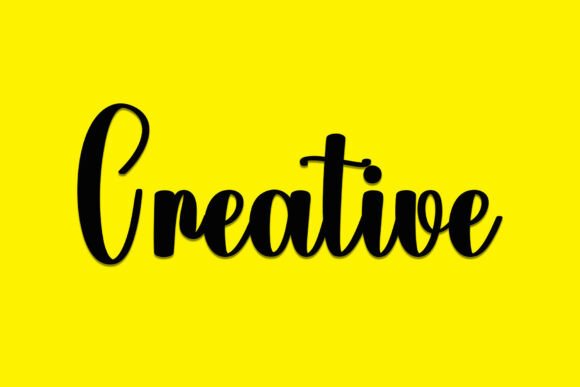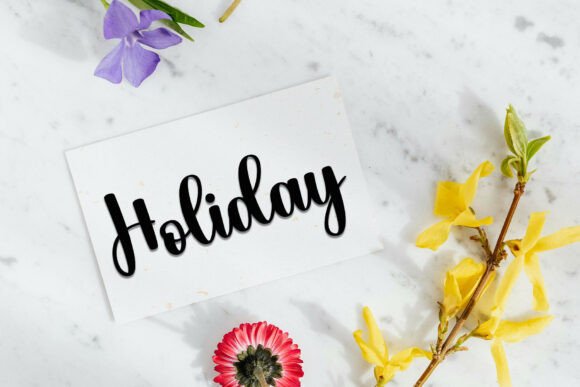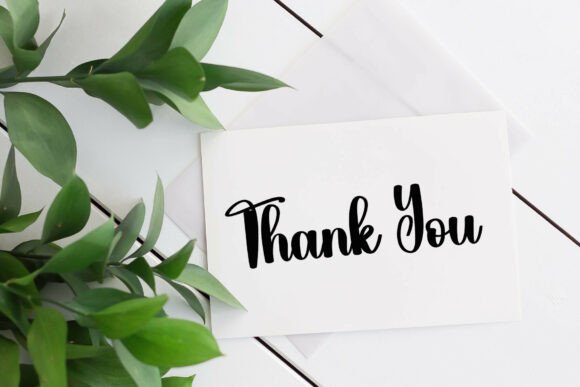
Introducing Background Beach: The Ultimate Modern Calligraphy Font for Elegant Coastal Designs
Are you looking for a font that combines sophistication with a relaxed coastal vibe? Look no further than Background Beach, a stunning modern calligraphy font that brings elegance and charm to any design project. With its smooth, flowing strokes and contemporary style, this versatile font is perfect for designers and crafters seeking to add a touch of romance and creativity to their work.
The Essence of Background Beach
Background Beach is a beautifully crafted font that captures the essence of handwritten calligraphy while maintaining a modern and stylish edge. Its flowing strokes and elegant curves evoke the breezy feeling of a serene seaside, making it an ideal choice for projects that require both sophistication and charm. Whether you’re designing wedding invitations, greeting cards, or branding materials, this font is sure to impress.
Background Beach is a versatile font that can be used for a wide range of design projects, including:
- Wedding Invitations: Add a touch of romance and elegance to your wedding invitations with Background Beach. Its smooth, flowing strokes and stylish curves make it perfect for formal and informal wedding designs.
- Greeting Cards: Create beautiful and heartfelt greeting cards for any occasion with Background Beach. Its elegant style and charming vibe make it ideal for birthdays, anniversaries, and holidays.
- Branding and Logos: Use Background Beach to create stunning brand identities and logos that reflect your company’s values and style. Its modern and sophisticated design makes it perfect for businesses seeking to establish a strong visual presence.
- Quotes and Social Media Posts: Add a touch of elegance and sophistication to your quotes and social media posts with Background Beach. Its stylish curves and flowing strokes make it perfect for sharing inspiring quotes, promoting products, or simply connecting with your audience.
- Posters and Stickers: Create eye-catching posters and stickers with Background Beach. Its bold and stylish design makes it perfect for advertising, promoting events, or simply adding a touch of personality to your designs.
- Cricut/SVG Crafts: Background Beach is also perfect for Cricut and SVG craft projects. Use it to create beautiful and intricate designs for paper crafts, vinyl cutting, and more.
Why Choose Background Beach?
So why choose Background Beach for your design projects? Here are just a few reasons:
- Timeless Elegance: Background Beach has a timeless elegance that will never go out of style. Its smooth, flowing strokes and stylish curves make it perfect for designers seeking to create sophisticated and charming designs.
- Modern Flair: This font also has a modern flair that makes it perfect for contemporary design projects. Its bold and stylish design makes it ideal for designers seeking to create unique and eye-catching designs.
- Versatility: Background Beach is a versatile font that can be used for a wide range of design projects, from wedding invitations to branding materials.
In conclusion, Background Beach is a stunning modern calligraphy font that brings elegance and charm to any design project. Its smooth, flowing strokes and stylish curves make it perfect for designers and crafters seeking to add a touch of romance and creativity to their work. With its versatility, timeless elegance, and modern flair, Background Beach is an ideal choice for a wide range of design projects, from wedding invitations to branding materials. So why wait? Download Background Beach today and start creating beautiful and elegant designs that will leave a lasting impression.
Whether you’re a professional designer or a crafter, Background Beach is sure to become a favorite in your font collection. Its unique blend of elegance and charm makes it perfect for anyone seeking to add a touch of sophistication and style to their designs. So go ahead, get creative, and let Background Beach elevate your projects to new heights.